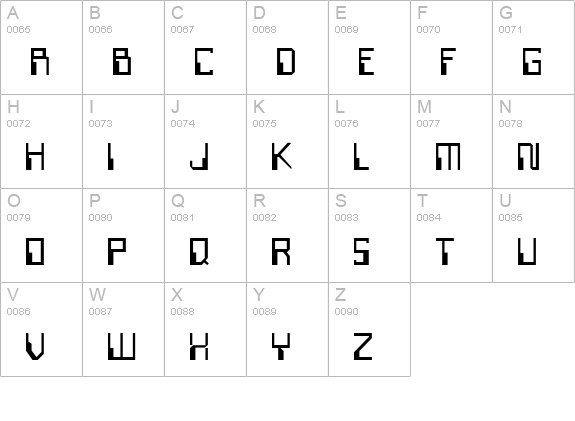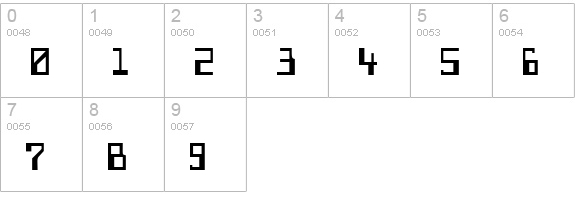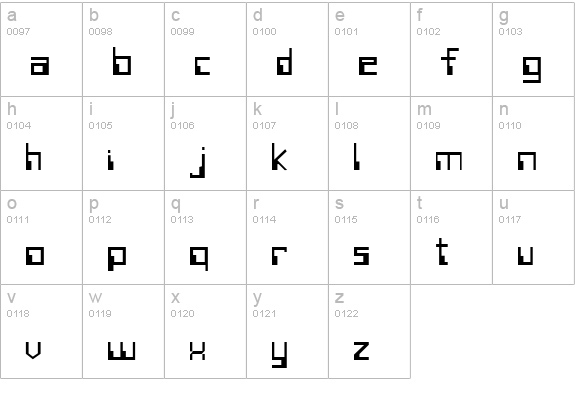
Challenger font is a versatile and modern typeface that exudes confidence and strength. With its bold lines and sharp edges, Challenger is perfect for making a bold statement in your design projects. Whether you are creating a poster, logo, or website, this font will surely grab the attention of your audience. The best part about Challenger font is that it is completely free to download at FontsMarket.com. You can easily add this powerful font to your collection without breaking the bank. Don't miss out on the opportunity to elevate your designs with Challenger font - download it today and let your creativity soar!